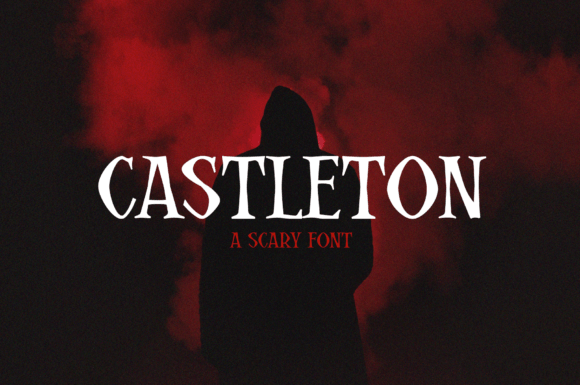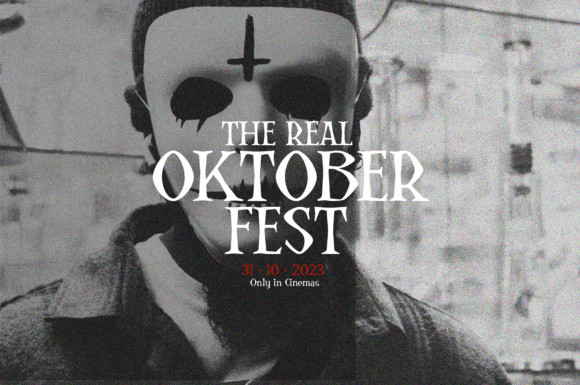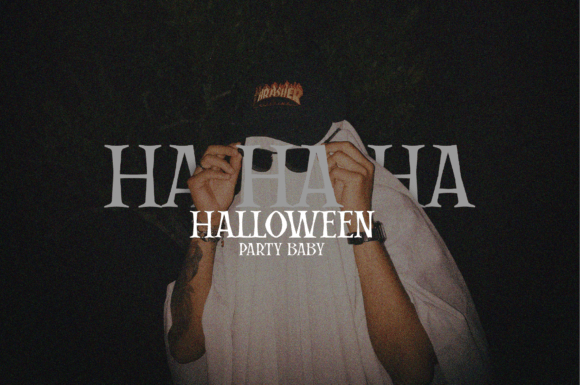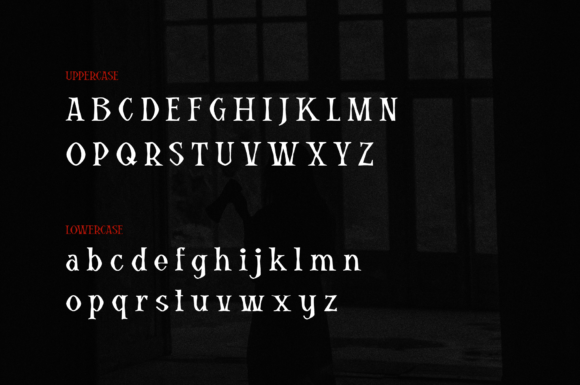
Castleton Font: A Spooky Display Font for Halloween Designs & Creepy Typography
About the Castleton Font
Welcome to the world of Castleton Font, a typeface that will inspire your next great project. Castleton is a Halloween-inspired typeface. This unique font is perfect for horror designs as well as fantasy-based projects. You can use it for just about anything like posters, branding, apparel, stationary, stickers, packaging, movies, album covers, and more. Create eye-catching designs today with Castleton!
Castleton Font Usage Examples
Castleton Font Example